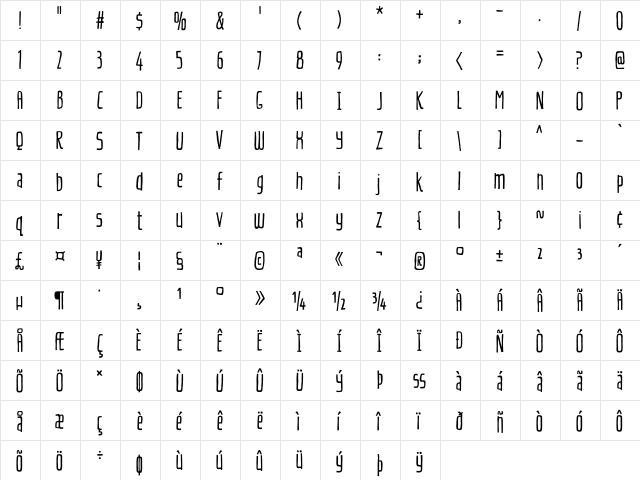
Cherily Blussom DEMO Regular
| Foundry | Jakob Fischer / pizzadude.dk |
| Designer | Jakob Fischer / pizzadude.dk |
Design Context for Cherily Blussom DEMO Typeface
Cherily Blussom DEMO takes a measured approach to typography — its balanced proportions and neutral character make it a reliable workhorse for both digital and print work.